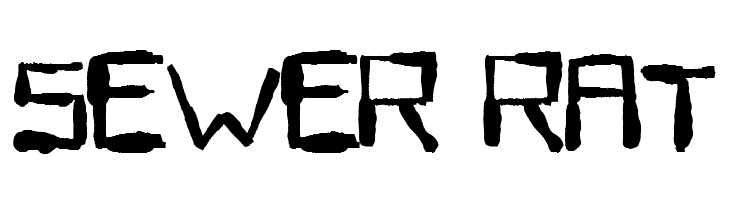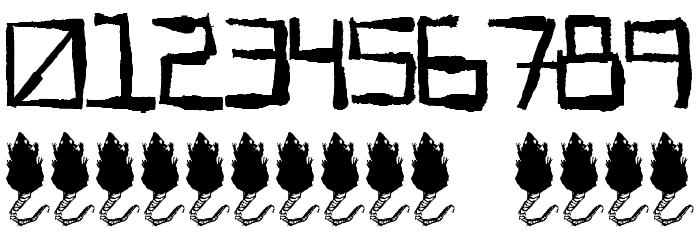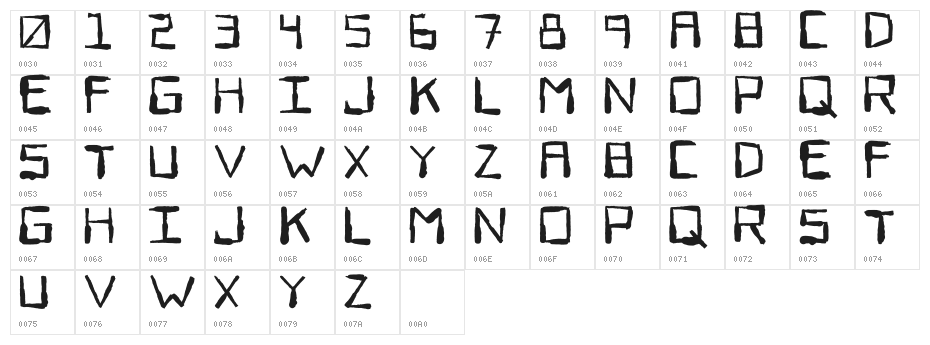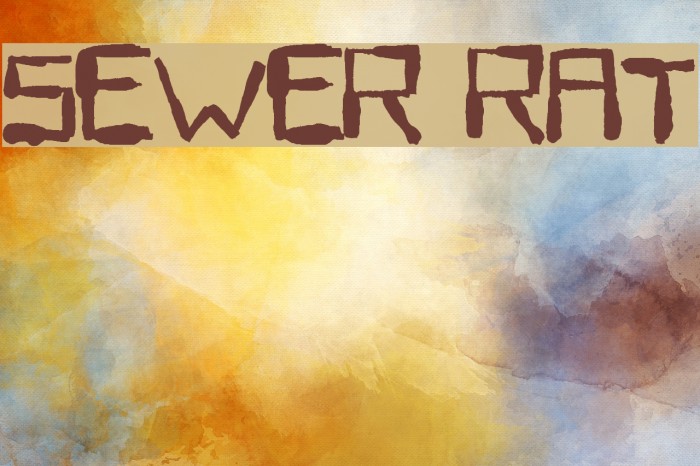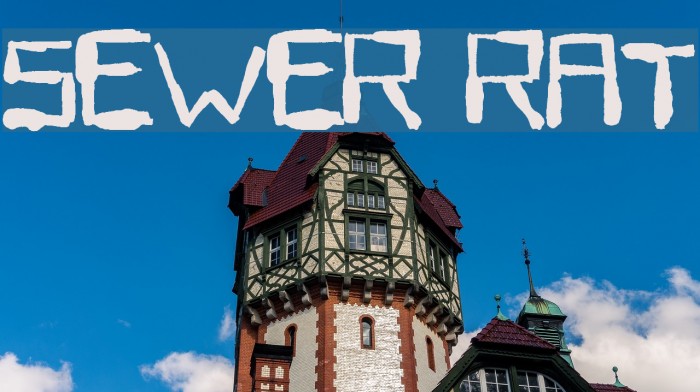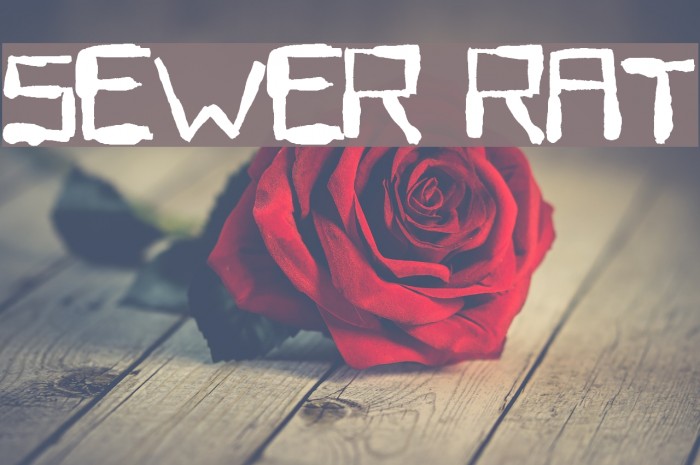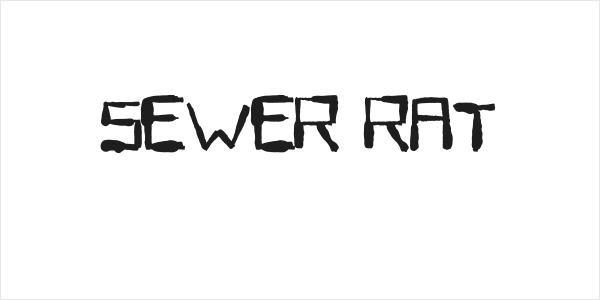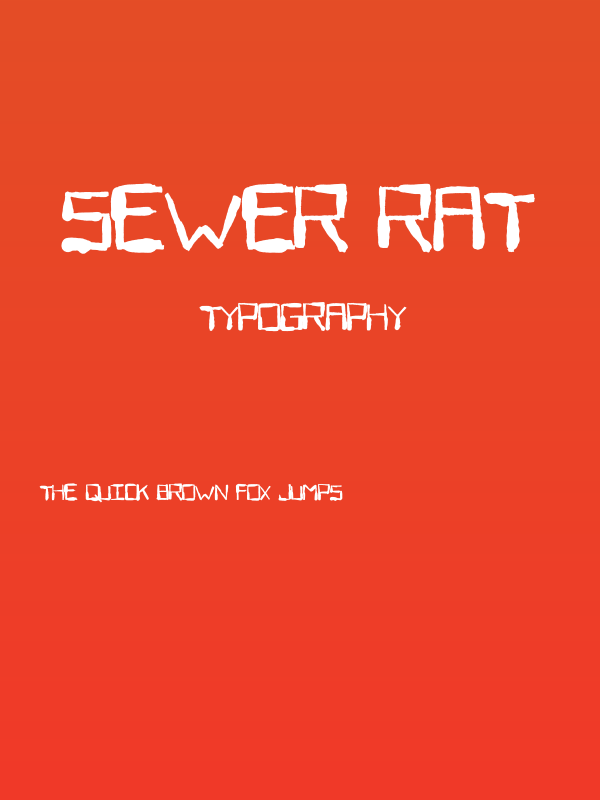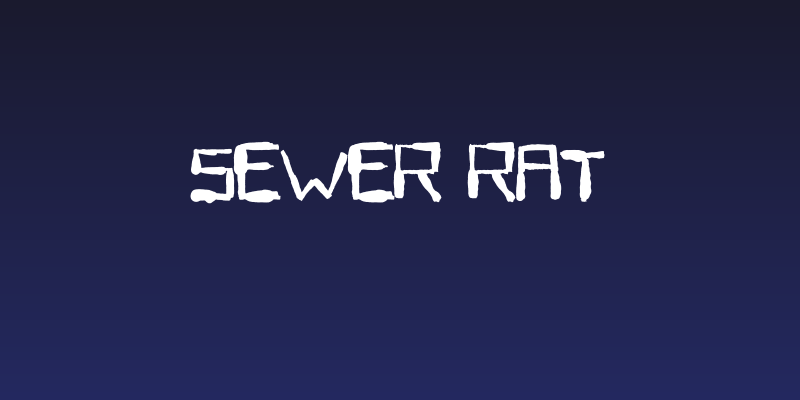
Sewer Rat Font
Sewer Rat Description
This font features a rugged, distressed appearance, reminiscent of graffiti or urban decay. The characters are bold and uneven, with a hand-drawn quality that suggests a sense of rebellion and edginess. The strokes are thick and irregular, giving each letter a unique, almost chaotic feel. The font's overall aesthetic is gritty and raw, making it ideal for projects that require a strong, unconventional look. The numbers and special characters maintain the same rough style, ensuring consistency throughout the typeface.
| Overall Style | Urban, Edgy, Raw |
| Proposed Projects | Perfect for street art designs, edgy posters, album covers, and urban-themed branding. |